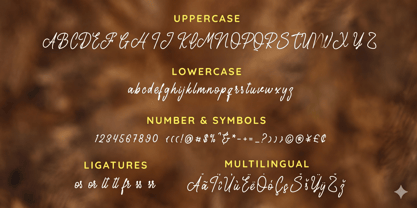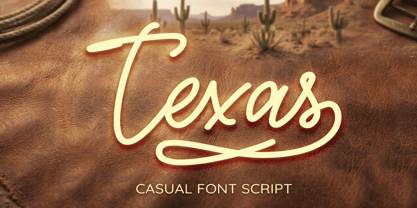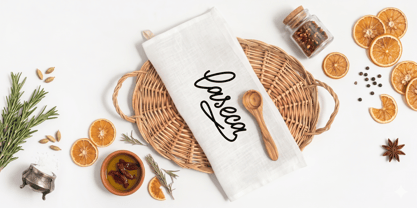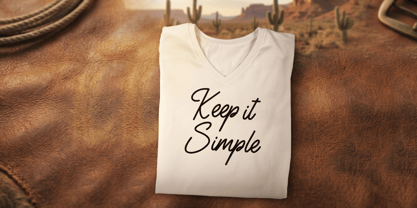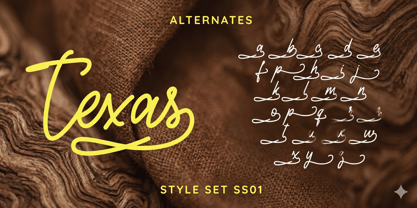
Texas Casual
by Dilbadil
The Texas Casual Font Family was designed by Abdillah Abdi and published by Dilbadil. Texas Casual contains 1 styles. More about this family
Introducing Texas Casual, a simple monoline script font designed to deliver a personal, authentic, and naturally flowing touch, just like real handwriting. With its consistent and clean lines, this font exudes a relaxed yet stylish vibe, making it highly versatile for a wide range of modern design projects.
Texas comes packed with beautiful character variations to let your creativity flow boundlessly. It's the perfect choice for designs that require a strong personality while remaining highly legible, warm, and friendly.
Key Features:
• Standard Characters: Uppercase & Lowercase
• Numerals & Punctuation: Complete numbers and essential punctuation marks
• Ligatures: Seamless letter connections for a more natural, handwritten look (e.g., os, or, tt, ss).
• Alternates (Style Set 01): Beautiful alternate lowercase characters featuring unique ending swashes to add a stylish finishing touch to your words.
• Multilingual Support: Broad language support with comprehensive accented characters.
Designers: Abdillah Abdi
Foundry: Dilbadil